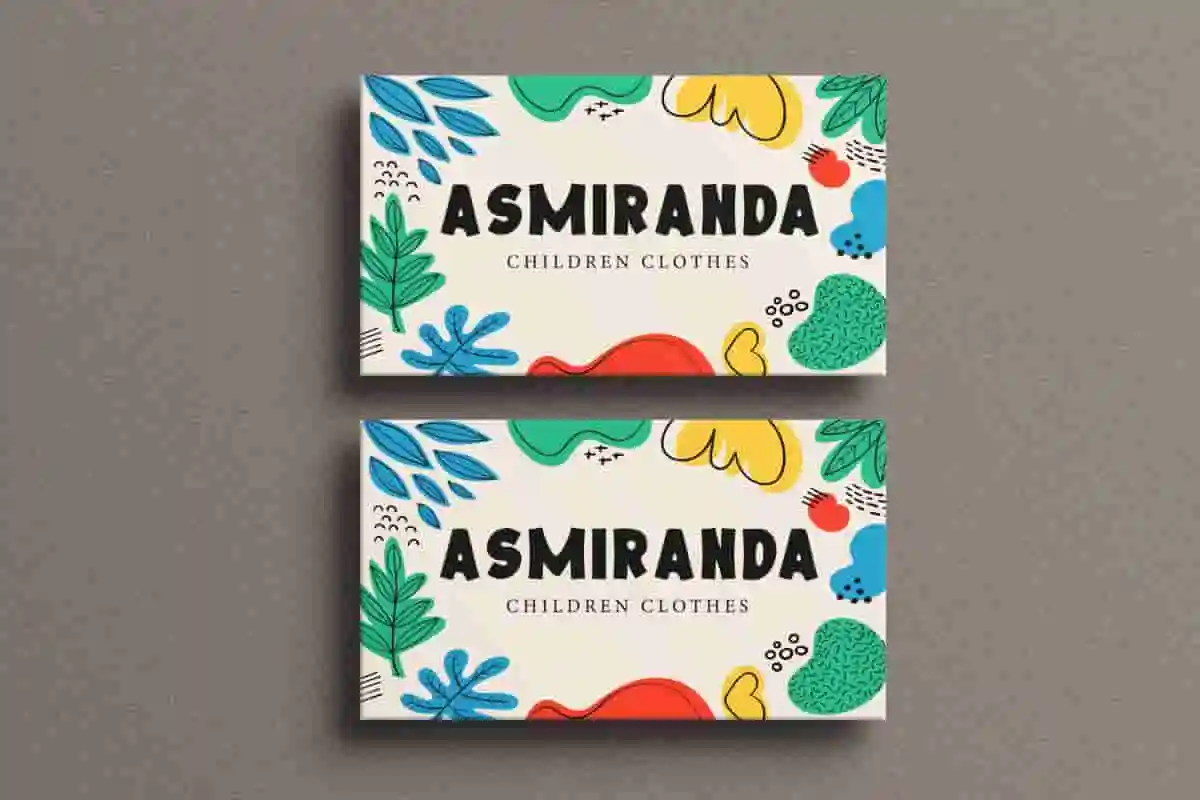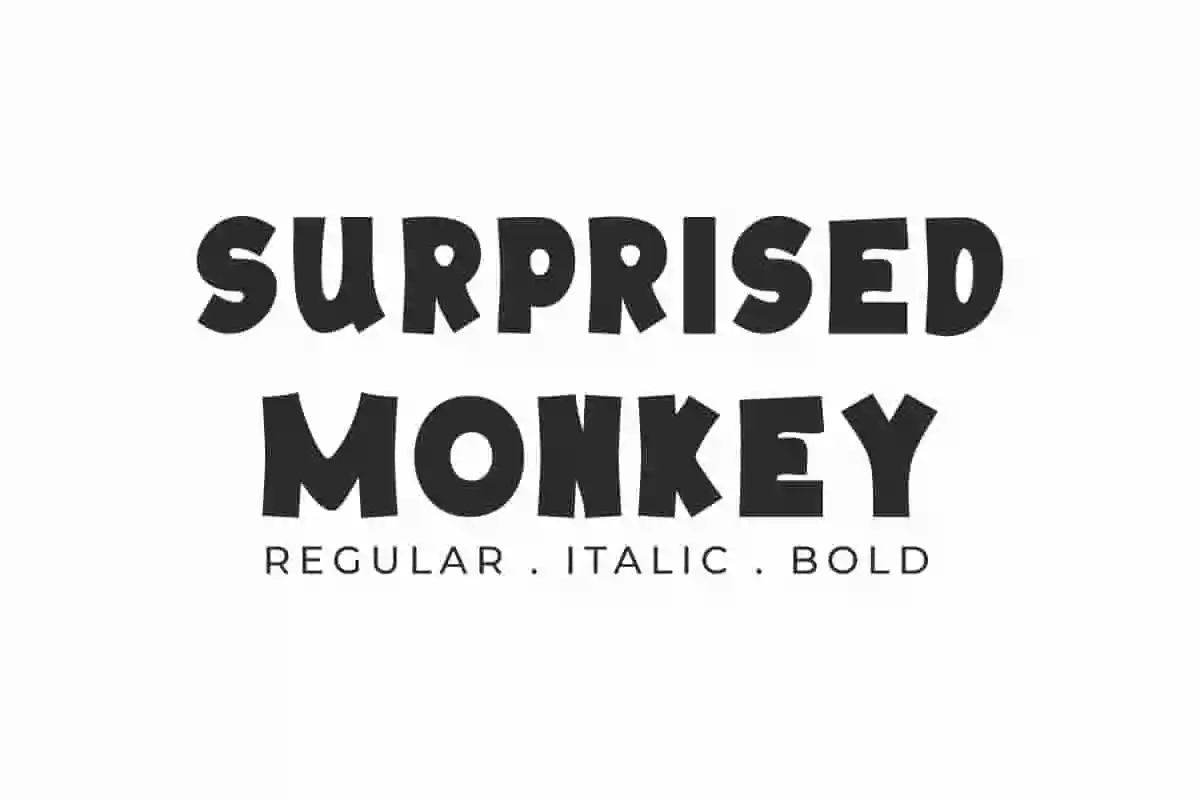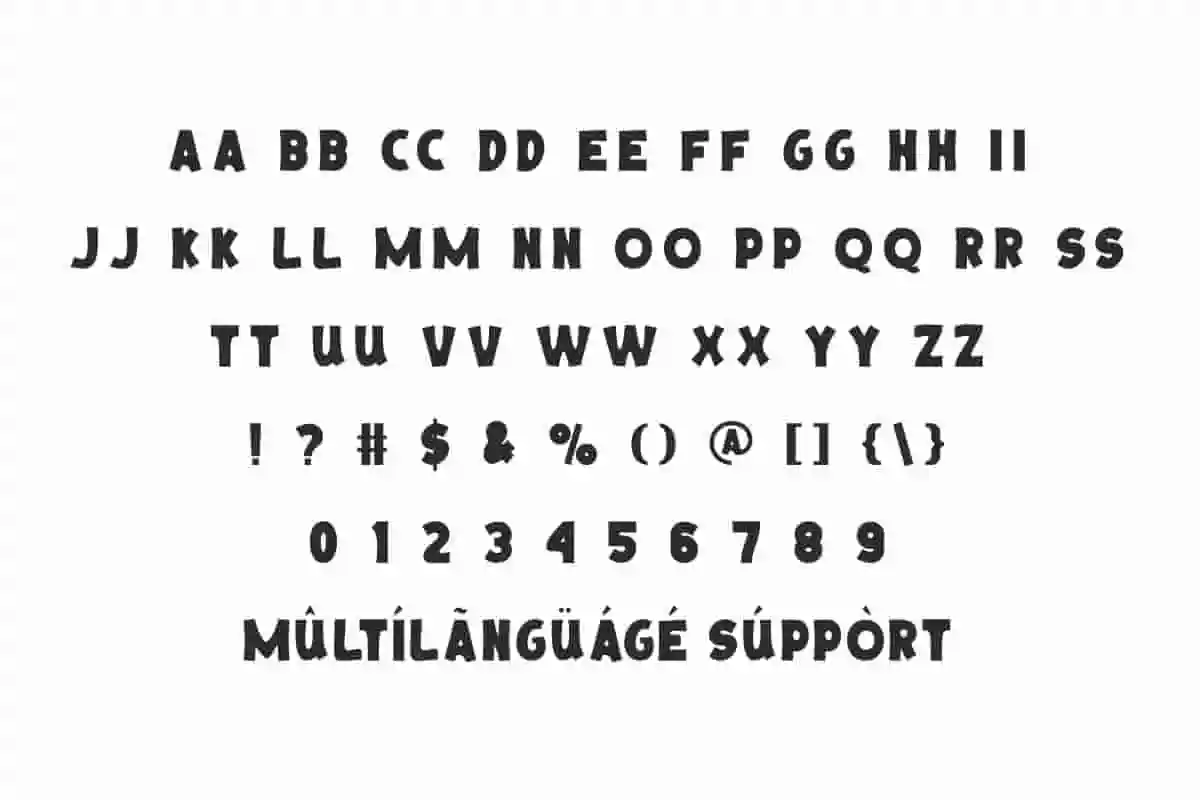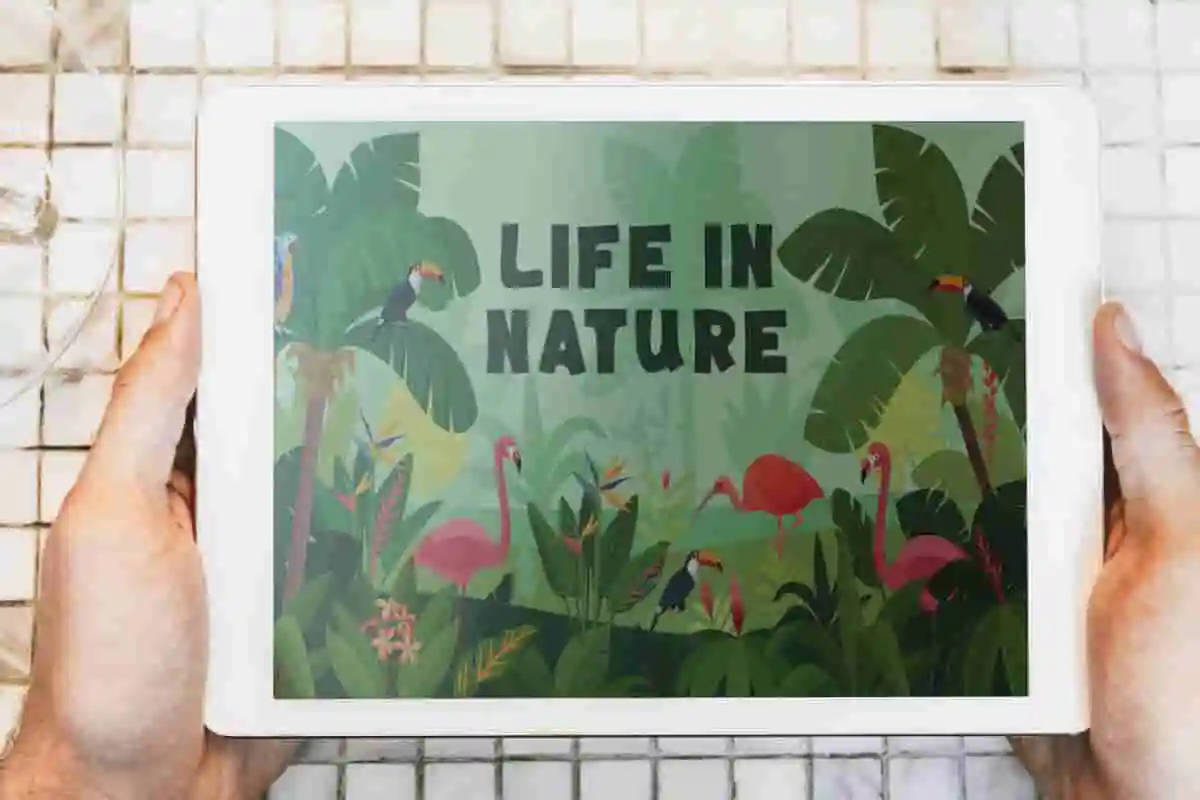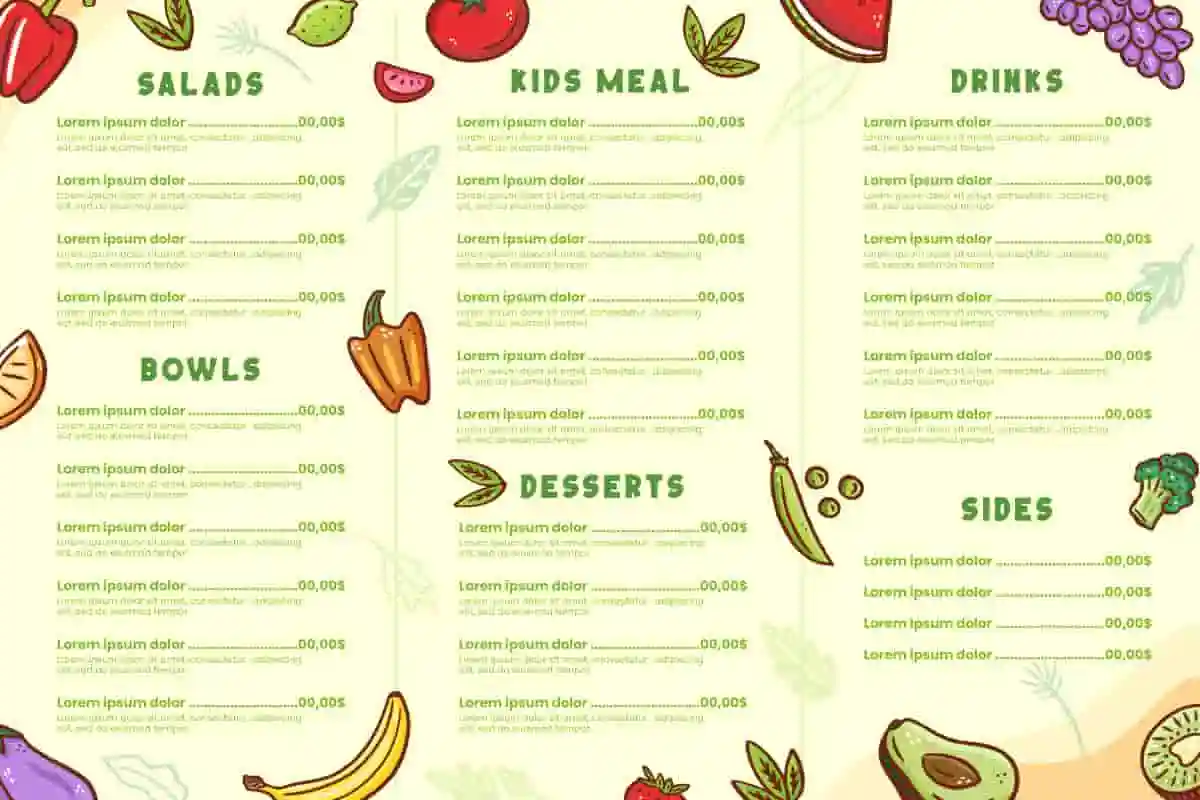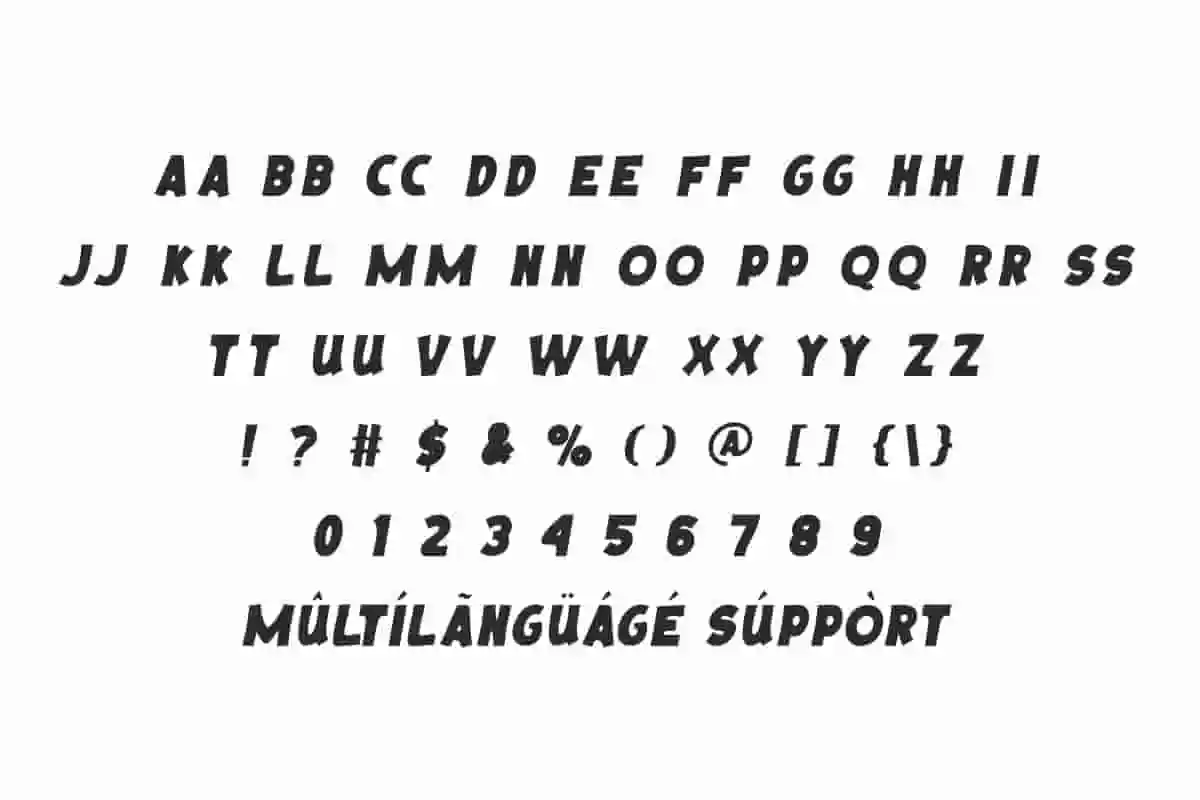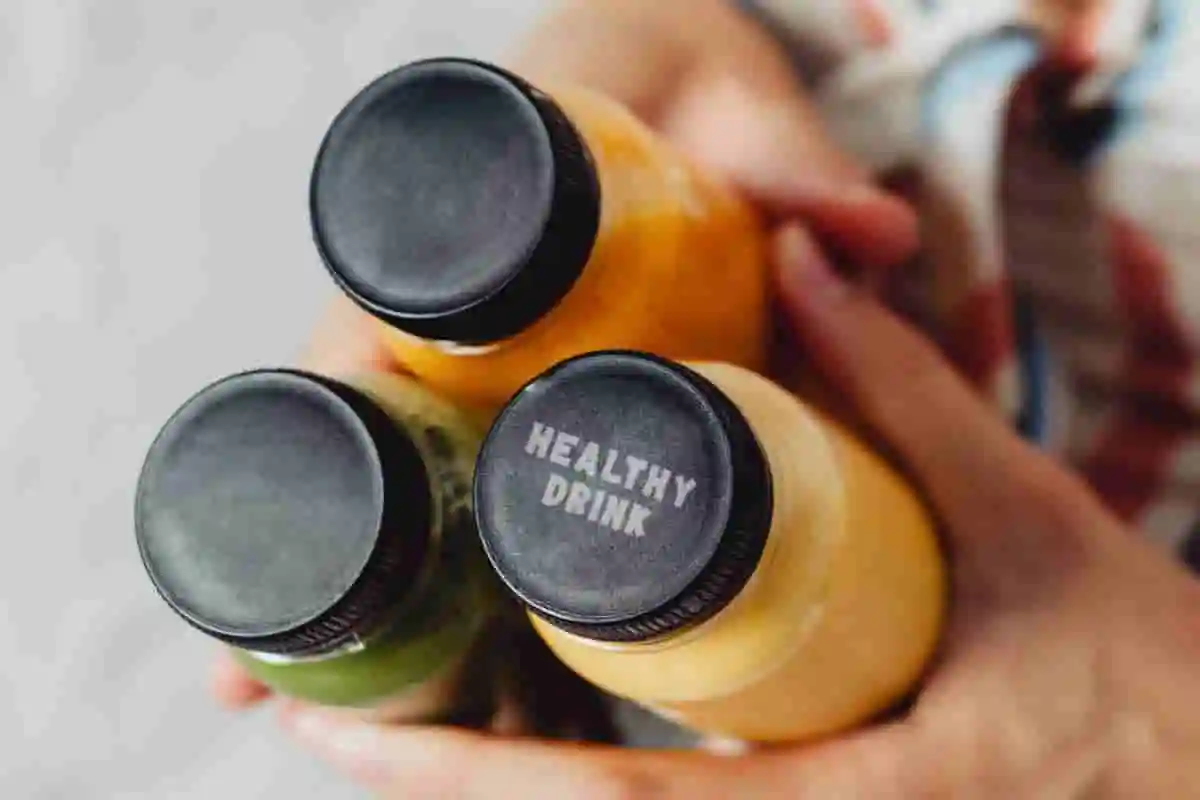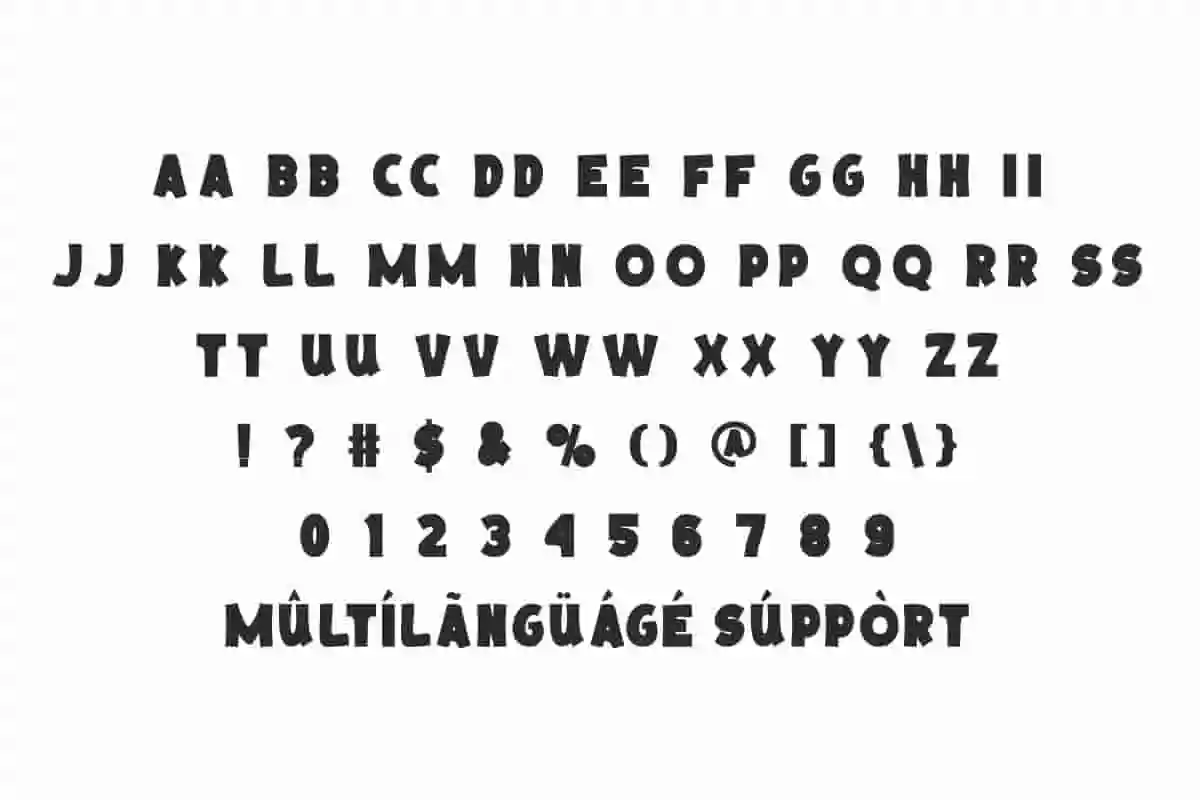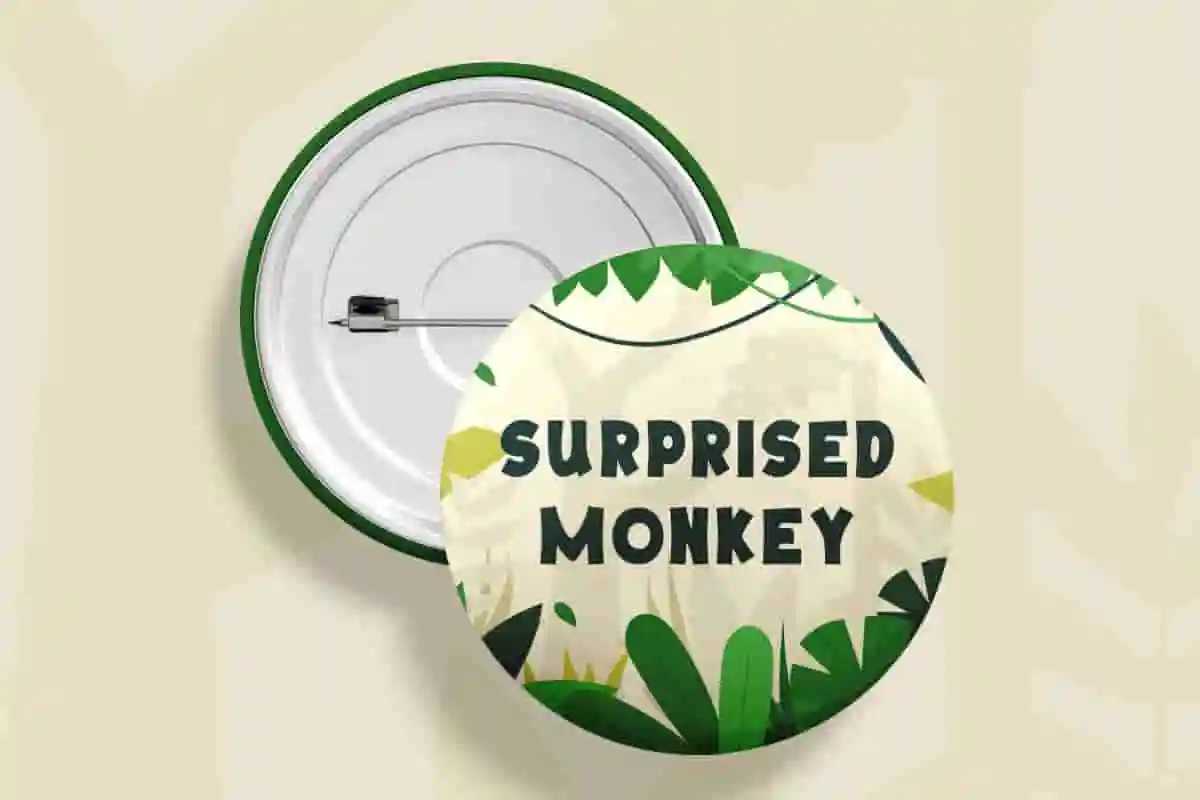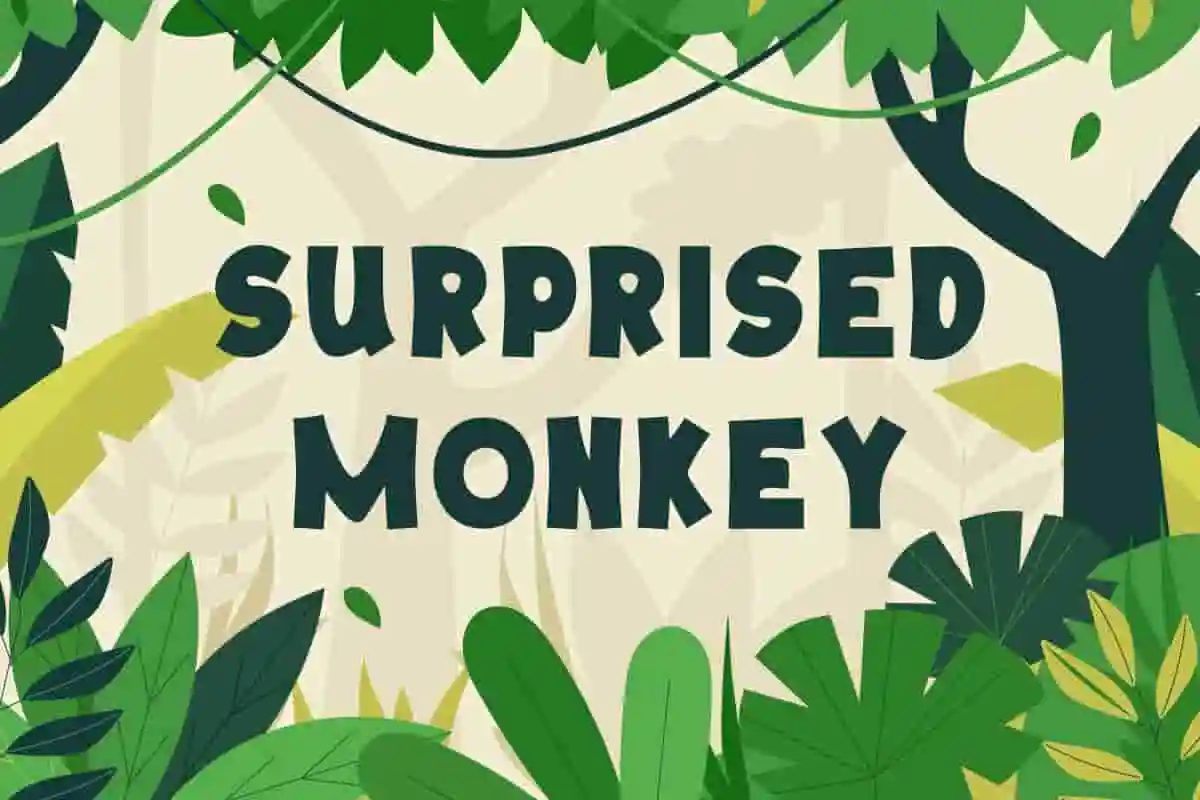
Surprised Monkey Font
Surprised Monkey Font is a cute playful sans serif display font ready to surprise you in any project! The font comes with three style options offered.
Surprised Monkey Font is a playful bold cartoon font family with three style options: Regular, Italic, and Bold. It will be interesting and be able to make your business feel good, such as accessories, café, cartoon, cheerful camp, child food, children clothes, comic, film, interior design, juice and beverage brands, kids crafts, printing, publishing, school, social media content, writer, and other fun related things.
Surprised Monkey Font includes full set of ALL CAPS with one size for Uppercase and Lowercase Basic Characters, Number, Punctuation, and Symbol. It will make your design full of joy, such as apps, billboard, brochure, business card, flyer, headline, poster, screen print, stationery, sticker, title, watermark, and many more.